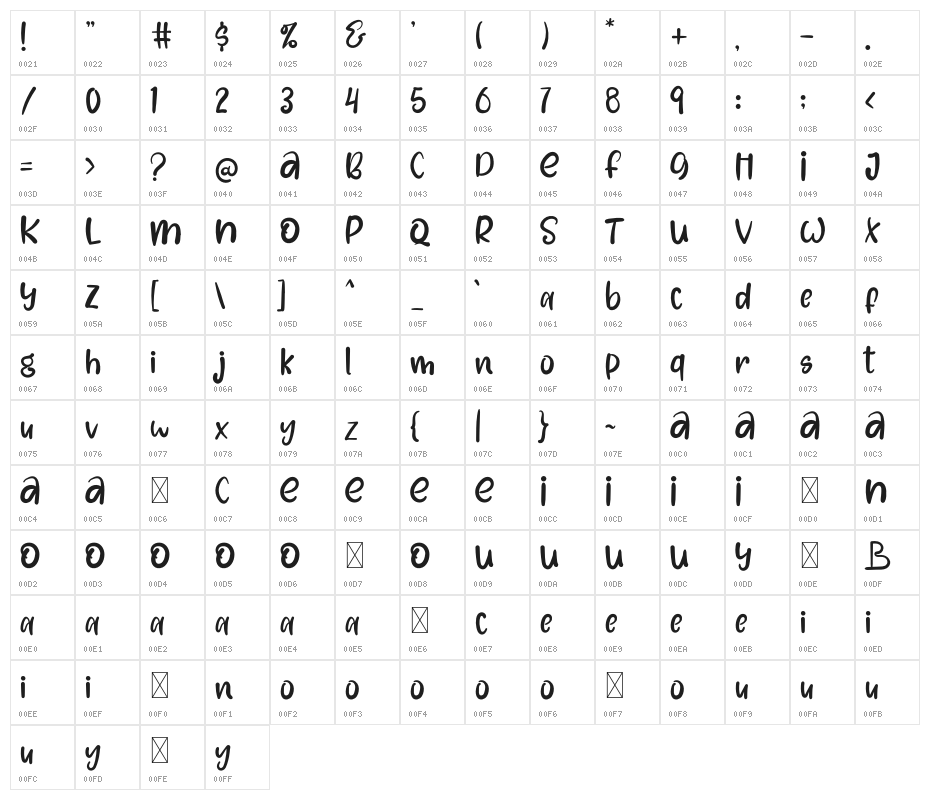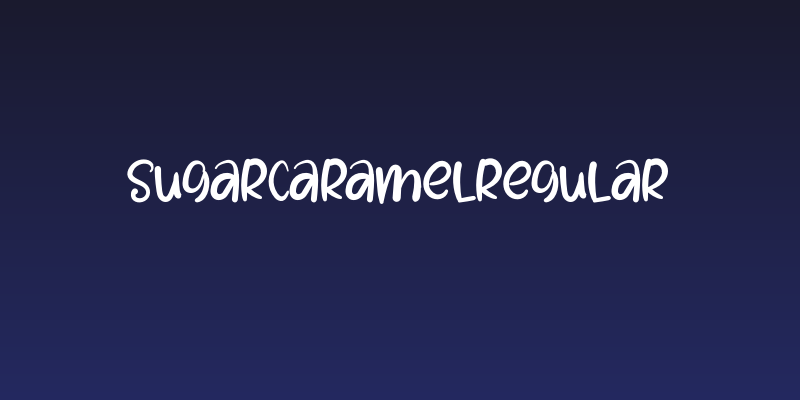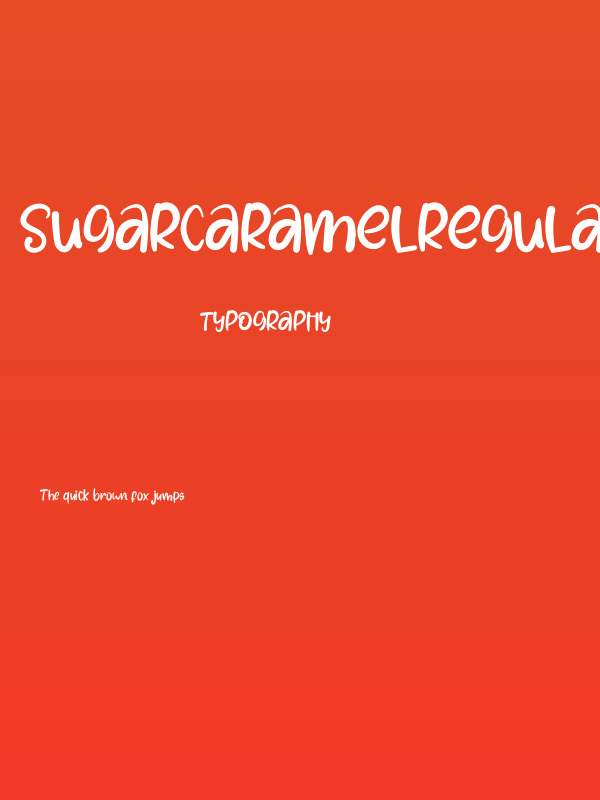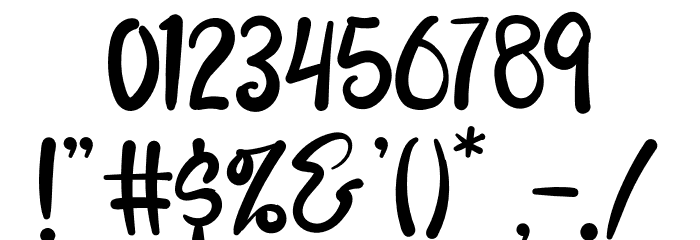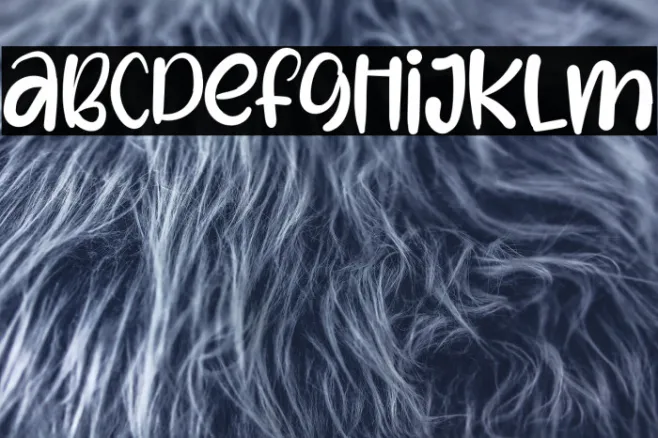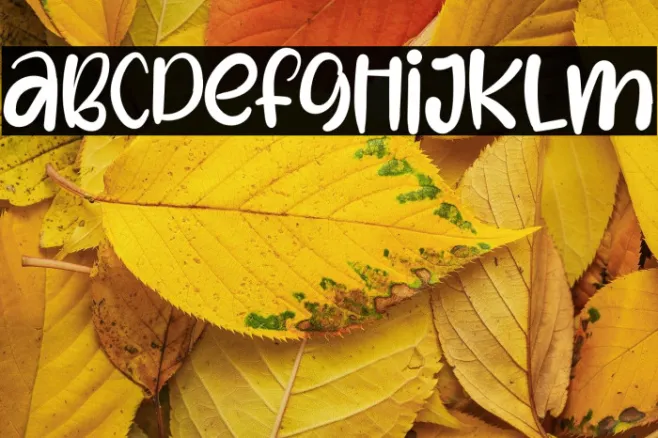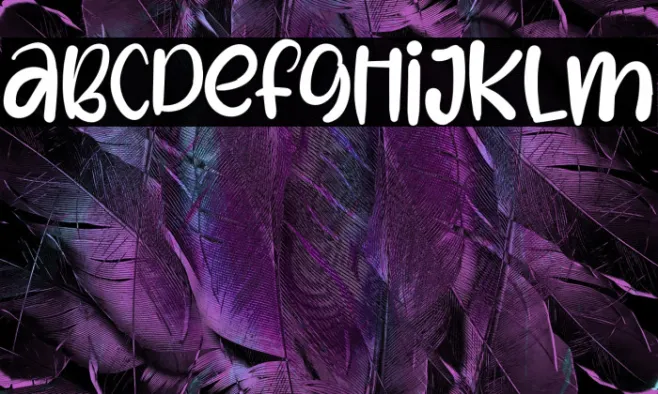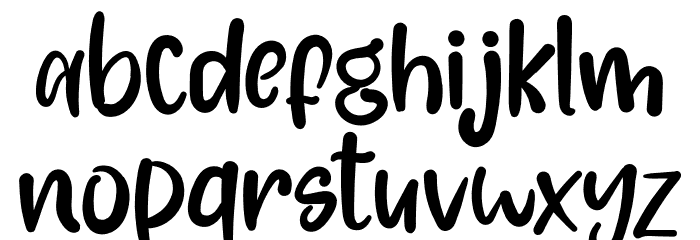
SugarCaramelRegular Font
SugarCaramelRegular Description
This playful and whimsical font features a handwritten style with smooth, flowing curves and a casual, friendly appearance. The letters are slightly rounded, giving them a soft and approachable feel. The uppercase and lowercase letters maintain a consistent style, with a slight slant that adds to the informal and relaxed vibe. The numbers and special characters are designed to match the overall aesthetic, ensuring a cohesive look across all text. This font exudes a sense of fun and creativity, making it ideal for projects that require a personal touch.
| Use Case | Logos, Invitations, Creative projects |
| Proposed Projects | Ideal for greeting cards, invitations, children's books, and creative branding. |